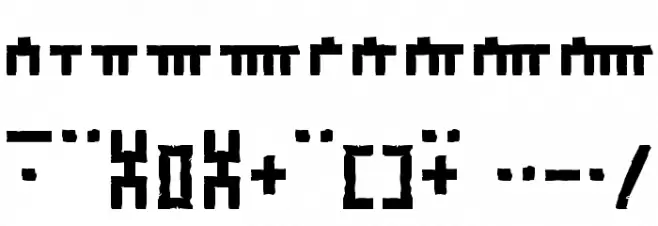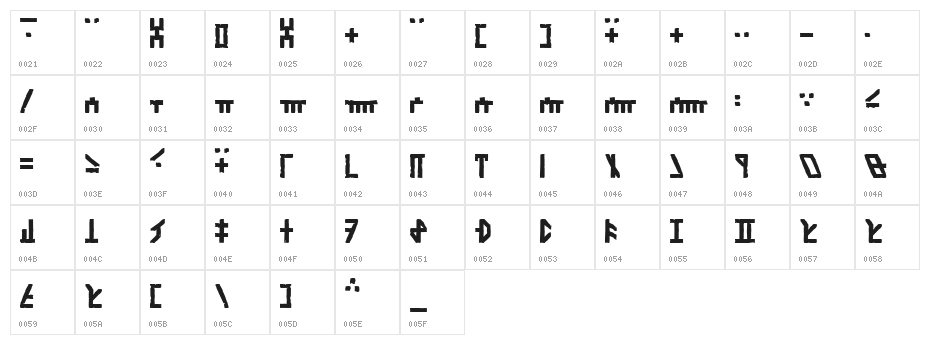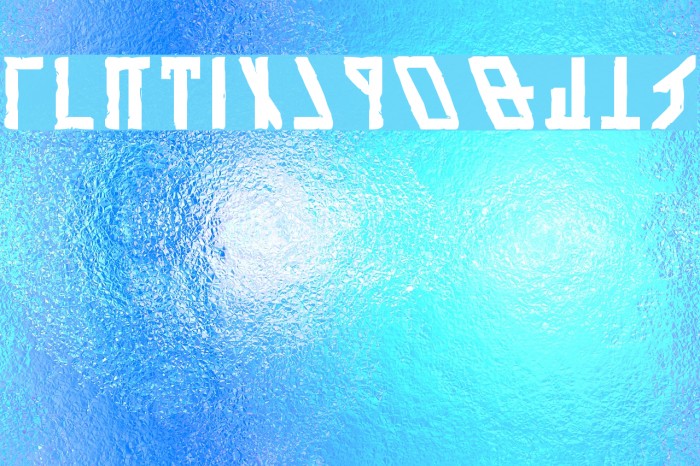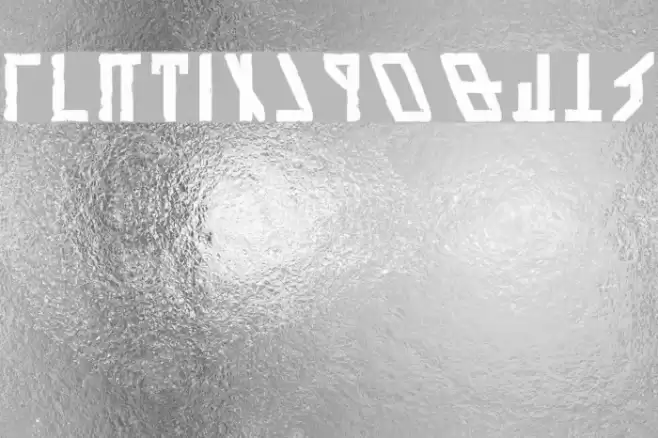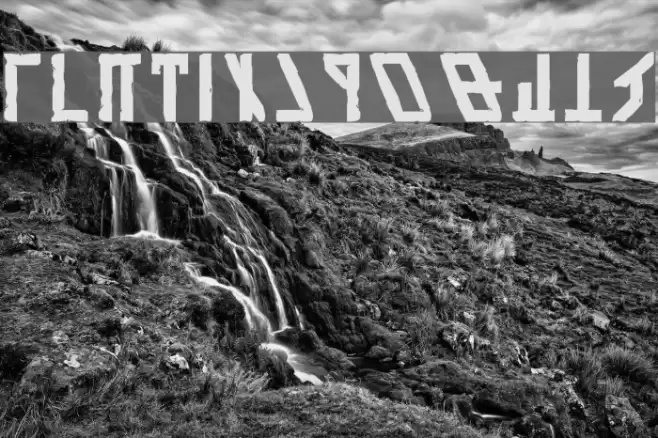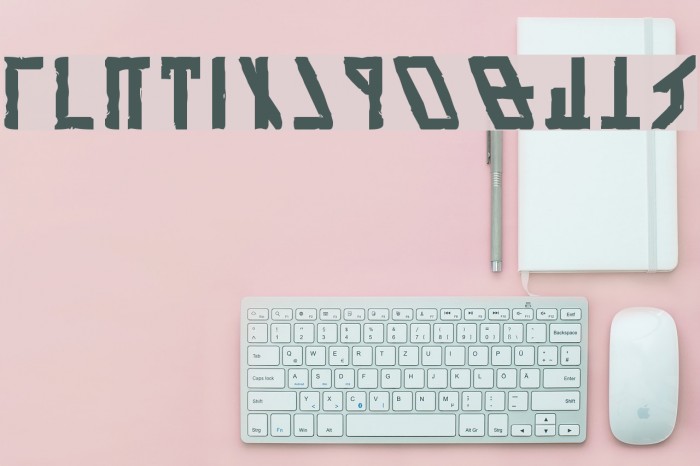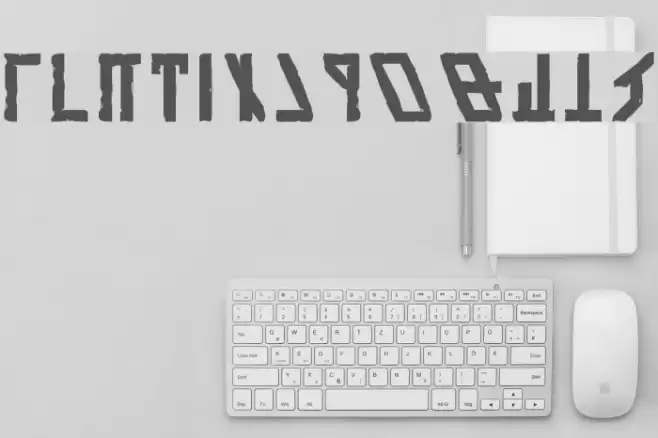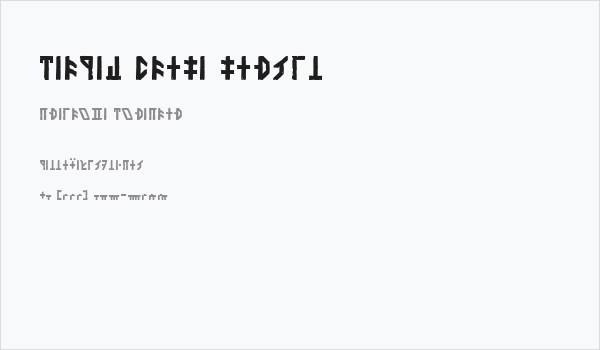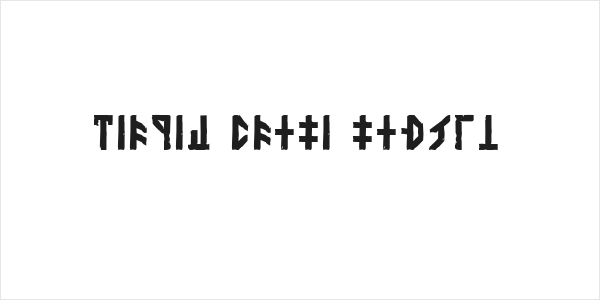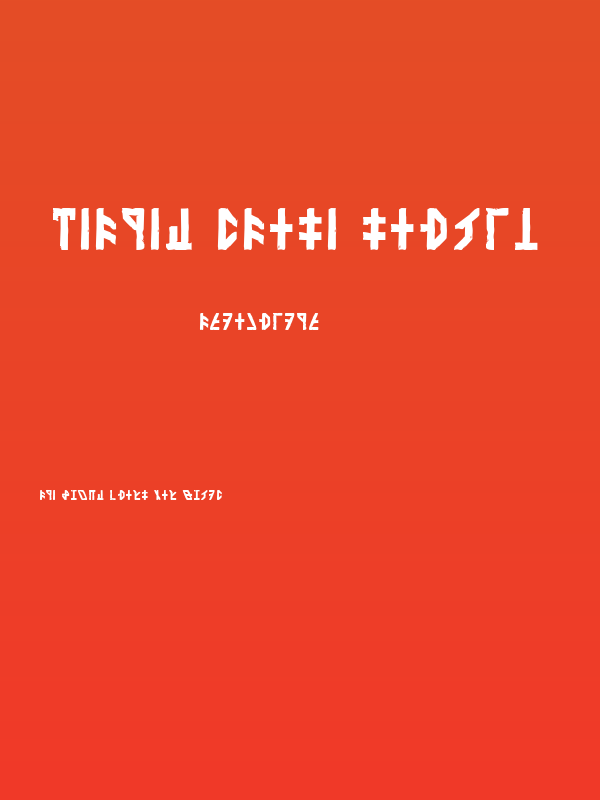
Dethek Stone Normal Font
Dethek Stone Normal Description
This font features a bold, angular design reminiscent of ancient runic inscriptions. Each character is crafted with sharp, geometric lines and a rugged texture, giving it a stone-carved appearance. The uppercase and lowercase letters maintain a consistent style, with a strong emphasis on vertical and diagonal strokes. Numbers and special characters follow the same aesthetic, ensuring uniformity across all glyphs. The overall look is both primitive and modern, making it suitable for projects that require a touch of mystery or historical depth.
| Use Case | Logos, Headlines, Themed Events |
| Proposed Projects | Ideal for fantasy-themed designs, video game interfaces, book covers, or any project needing an ancient or mystical feel. |